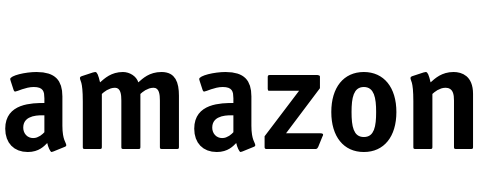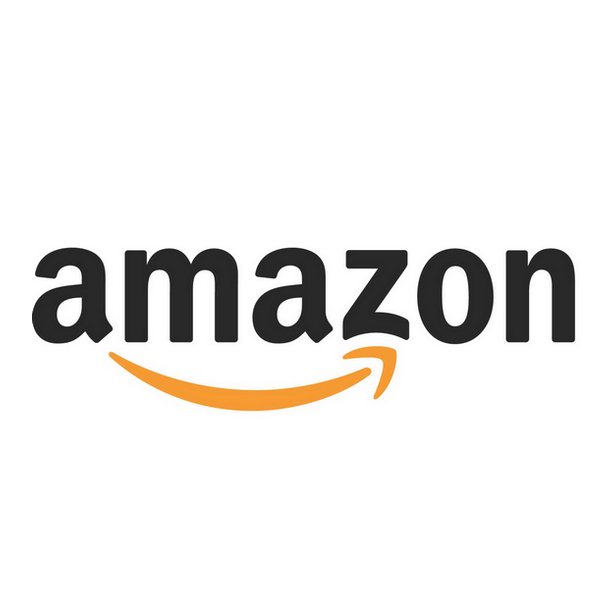
Amazon Font
Fonts in UseAmazon is an American multinational technology company founded by Jeff Bezos in 1994. It operates in e-commerce, cloud computing, digital streaming, and artificial intelligence.
Amazon's logo has undergone several redesigns since its founding in 1994, with the current version featuring an orange arrow leading from the letter "A" to "Z". The logo represents the company's commitment to offering everything from A to Z and providing customer satisfaction. The current design was created by Turner Duckworth in 2000, based on the previous logo, which used the Officina Sans font for the wordmark.